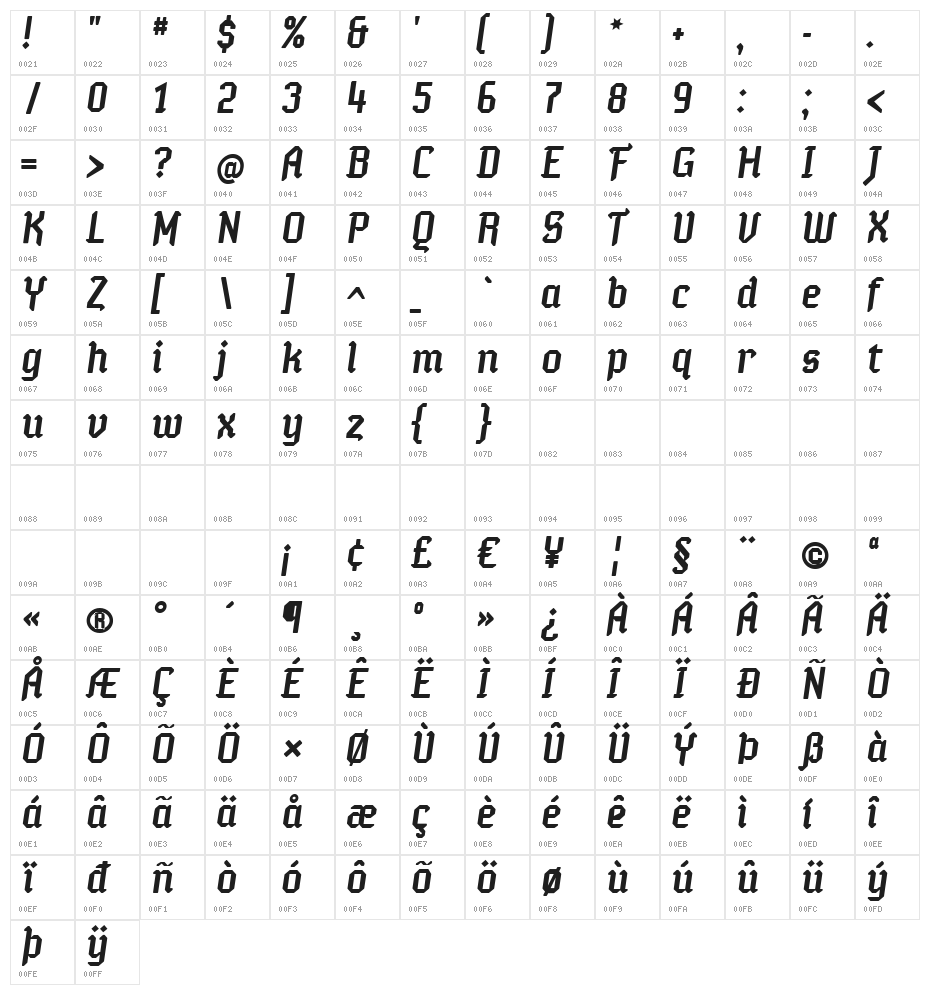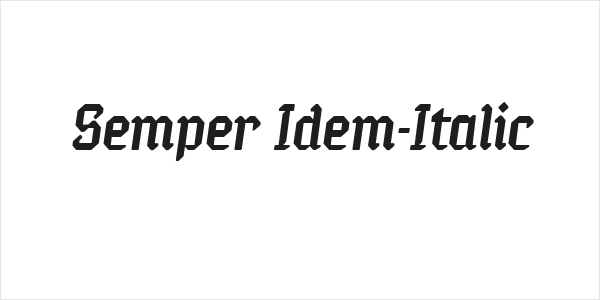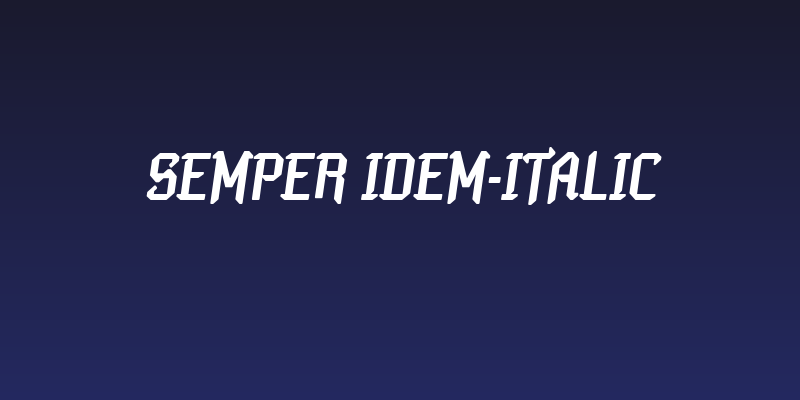
Semper Idem-Italic Font
Semper Idem-Italic Description
This font features a bold and dynamic italic style, characterized by its sharp angles and geometric forms. The uppercase letters exhibit a strong presence with consistent stroke widths, while the lowercase letters maintain a cohesive flow with slightly more curvature. The numerals are distinct and easily readable, matching the boldness of the alphabet. Special characters are designed to complement the overall aesthetic, ensuring versatility in various applications. The font's italic nature adds a sense of movement and energy, making it suitable for attention-grabbing designs.
Proposed ProjectsIdeal for branding, posters, headlines, and any design requiring a bold, dynamic presence.